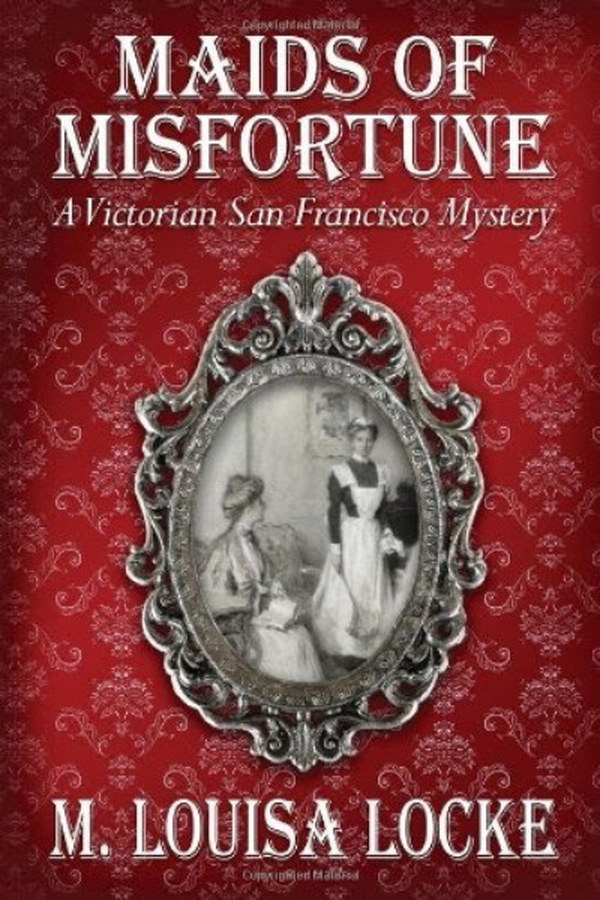
Maids of Misfortune Font
BookMaids of Misfortune: A Victorian Sans Francisco Mystery is a mystery novel by M. Louisa Locke, set in Victorian San Francisco, following a widow who starts a boarding house and ends up becoming a private investigator.
The book "Maids of Misfortune" title font most likely features Algerian D, a typeface created by Stephenson Blake. This all-caps font resembles Victorian woodcut typefaces from the 19th century.